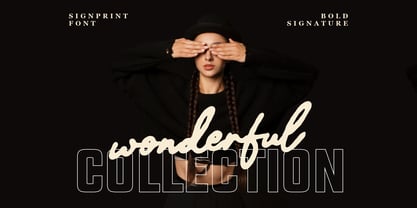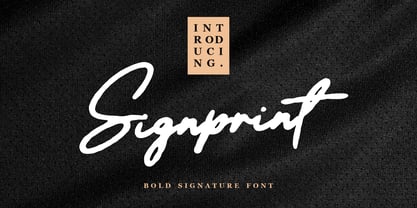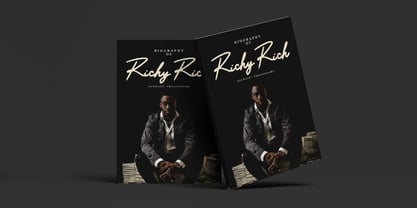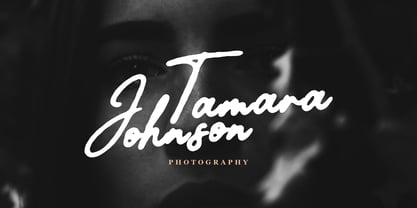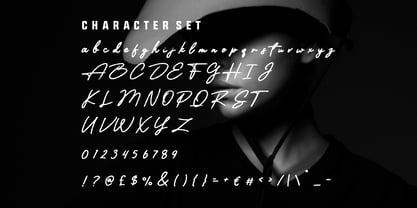
Signprint
by Shanaf
The Signprint Font Family was designed by Yesie Erma Yunita and published by Shanaf. Signprint contains 1 styles. More about this family
Signprint Bold Handlettering Font is a modern signature typeface designed with bold, confident strokes that radiate elegance and personality. The font combines a handwritten script flow with a strong presence, making it ideal for luxury branding and impactful logo designs. Its cursive strokes and textured finish create a natural handwritten impression, giving designs a personal yet professional touch. Signprint Bold Handlettering Font is perfect for projects that need a balance of sophistication and creativity without sacrificing readability.
This font is versatile and adapts well across multiple design needs such as branding, advertising, packaging, book covers, magazine headlines, wedding invitations, and film titles. Its bold script style ensures visibility in posters and business promotions while maintaining an authentic handwritten character for personal projects. Whether you are designing for high-end businesses, artistic portfolios, or unique product packaging, Signprint Bold Handlettering Font delivers a timeless look that elevates your visual identity with elegance and authority.
Designers: Yesie Erma Yunita
Foundry: Shanaf